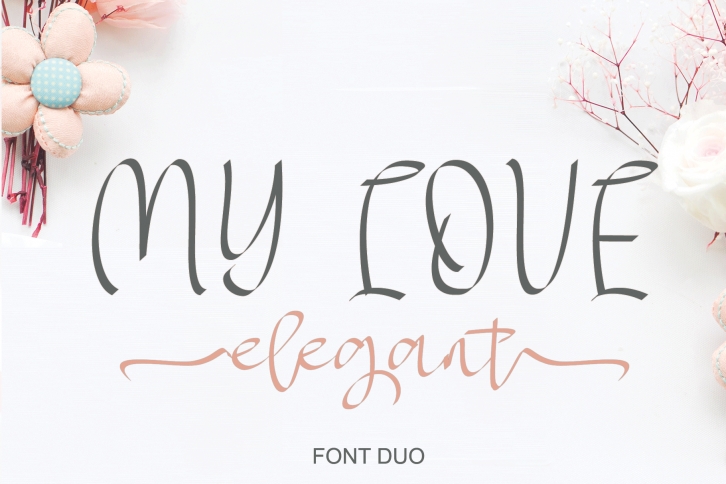
MY LOVE elegant is a trendy and unique font with an authentic style. It was designed by Letter-P and it's a great choice for creative people who need such a font. It was released on March 20, 2019 and the file size is 1.44 MB. MY LOVE elegant will add an organic vibe to any design idea!